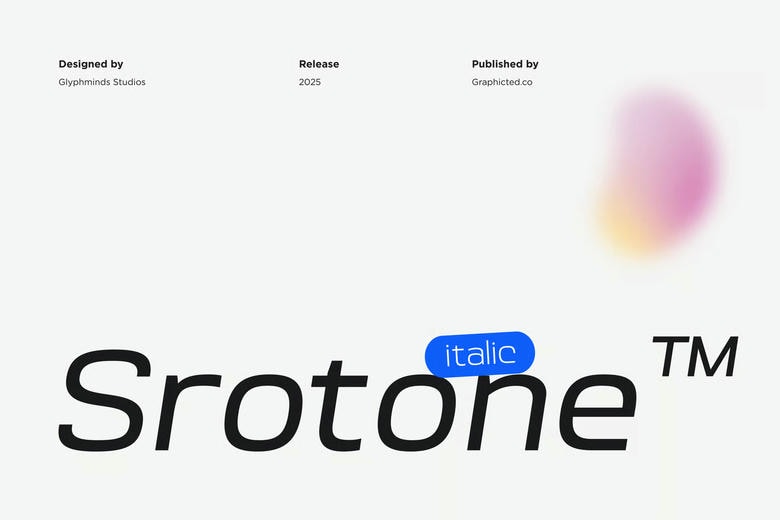
Srotone Italic Font
Srotone Italic Version is a contemporary geometric Sans Serif Font, well-suited to any versatile and direct application. It has a professional yet relevant appearance, and due to its smooth lines and harmonious proportions it is bound to enhance any design project. Srotone(tm) is multi-purposed and ideal for branding, digital interfaces, editorial layouts and minimalist designs.
With a bold typeface, a minimal logo and a fresh body type, this is a font that will work uniformly across all print and digital formats. Give an artistic touch to your innovative projects with a modern design of Srotone.
Srotone Italic Sans Serif Font